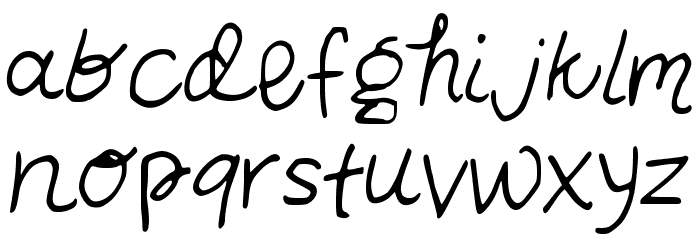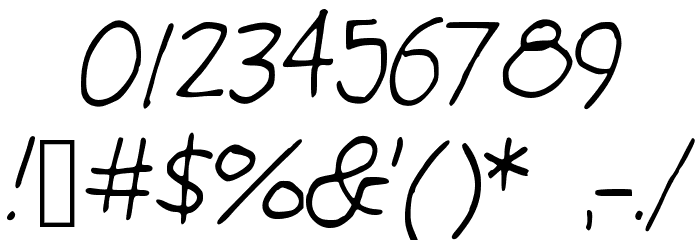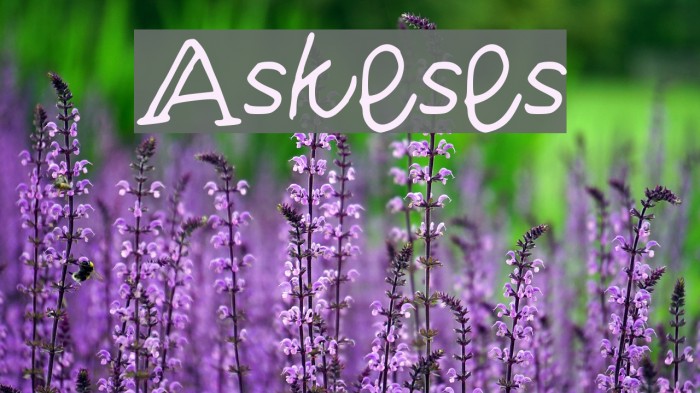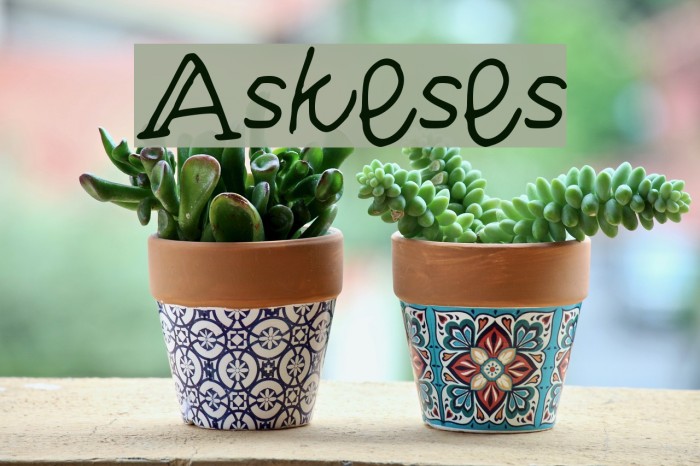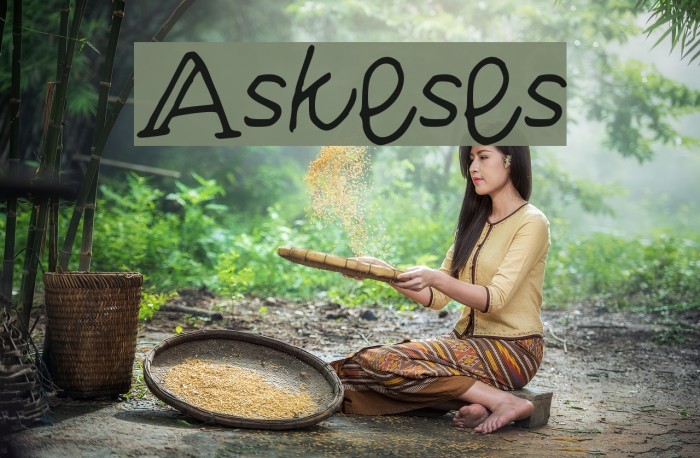
Askeses Font
This font features a playful and casual handwritten style, characterized by its fluid and slightly irregular strokes. The uppercase letters have a whimsical charm, with varying stroke widths that add a dynamic feel. Lowercase letters maintain a consistent flow, enhancing readability while preserving the font's informal nature. Numbers and special characters are crafted with the same lively spirit, making them suitable for creative projects. The overall appearance is both approachable and expressive, perfect for adding a personal touch to any design.
A playful handwritten font with fluid, irregular strokes and a lively character.
- Proposed Projects: Ideal for greeting cards, invitations, children's books, and creative branding.
- Overall Style: Casual, Playful
- Use Case: Headlines, Logos, Informal Text